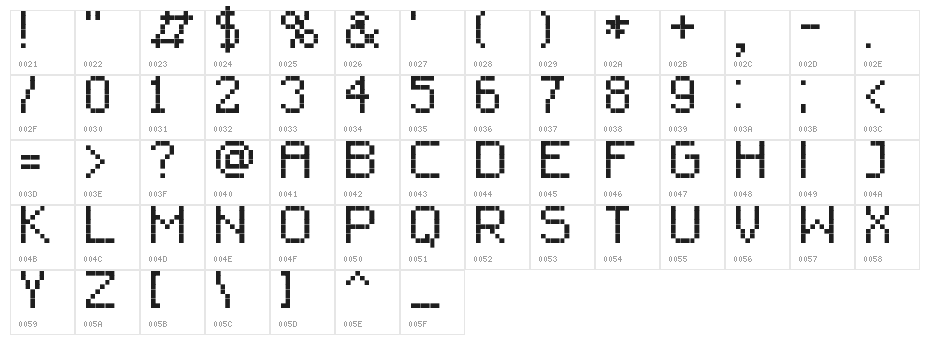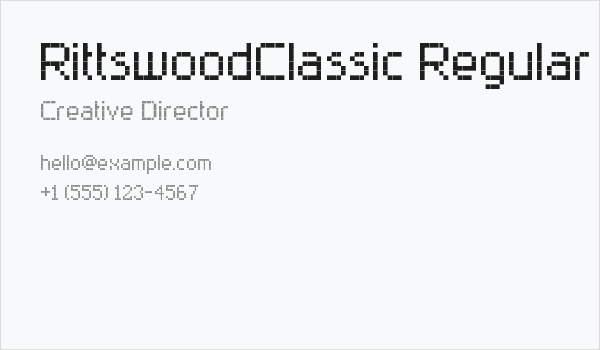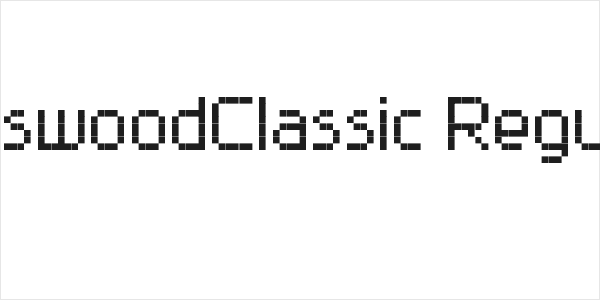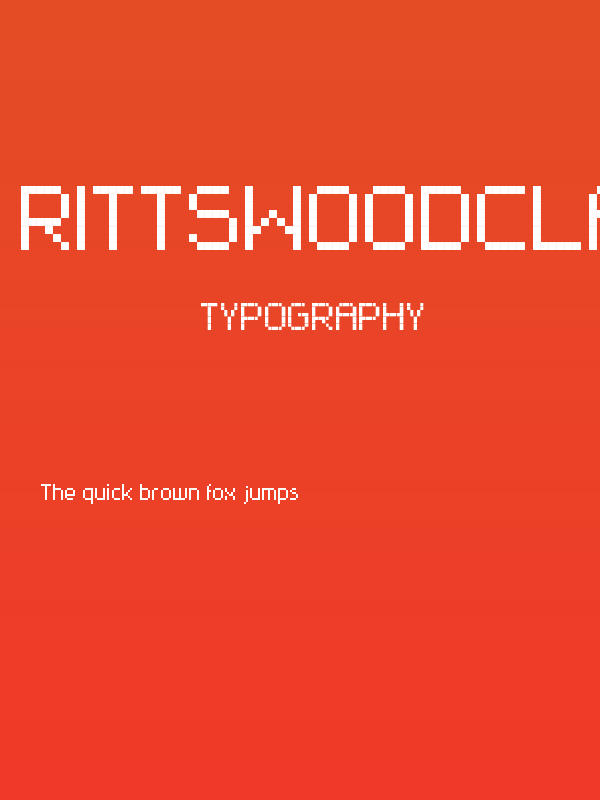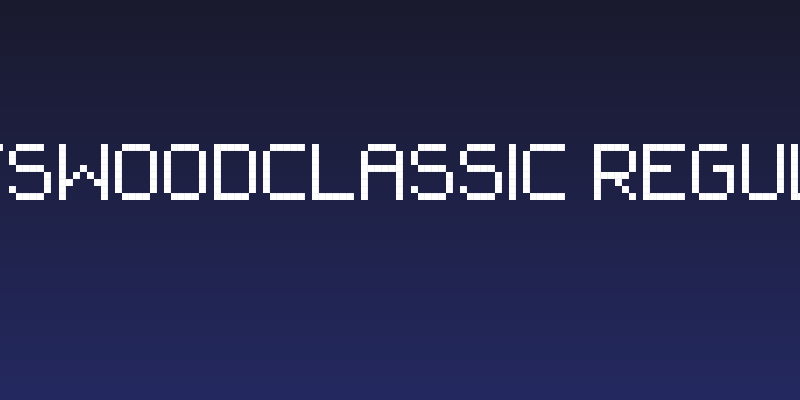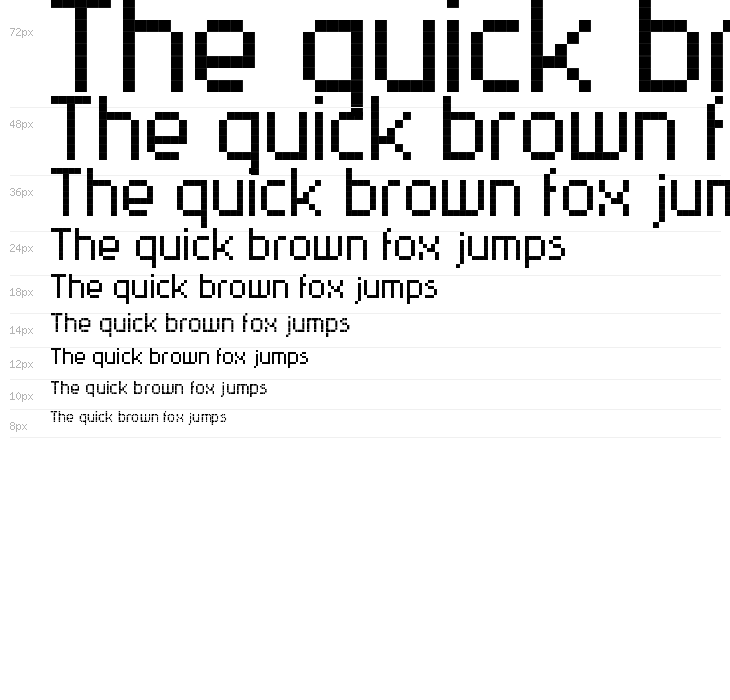
RittswoodClassic Regular Font
RittswoodClassic Regular Description
This font features a distinct pixelated style reminiscent of early digital displays and retro video games. Each character is composed of a grid of squares, giving it a blocky and geometric appearance. The uppercase and lowercase letters maintain a consistent height, contributing to a uniform look. The numerals and special characters follow the same pixelated design, ensuring visual coherence across all elements. This font's nostalgic aesthetic is ideal for projects that aim to evoke a sense of vintage technology or digital art.